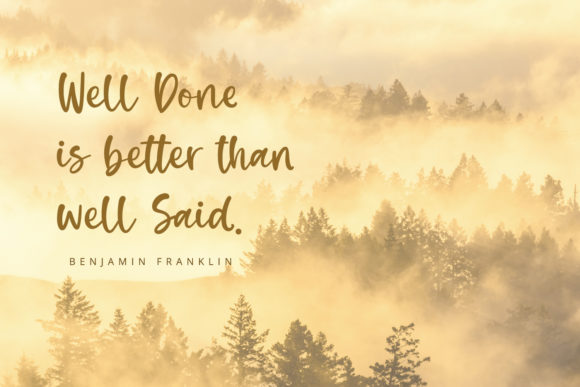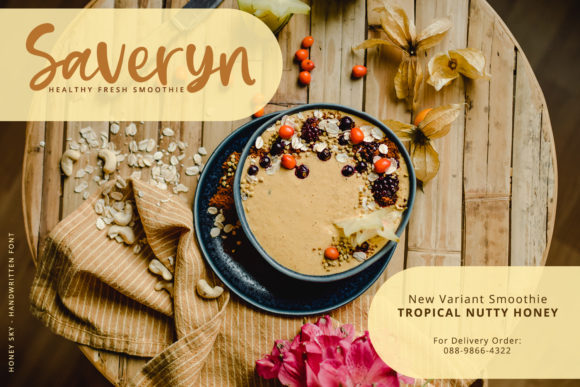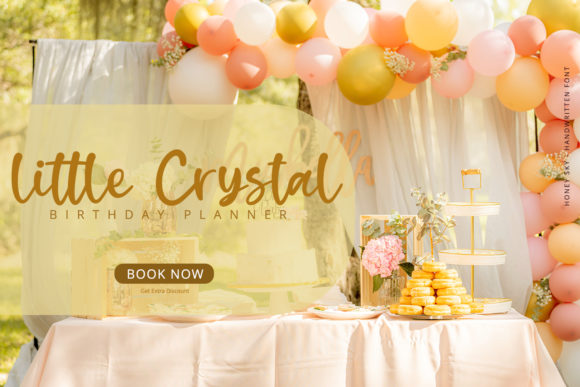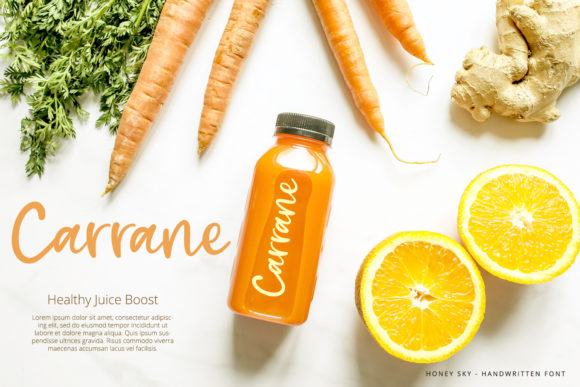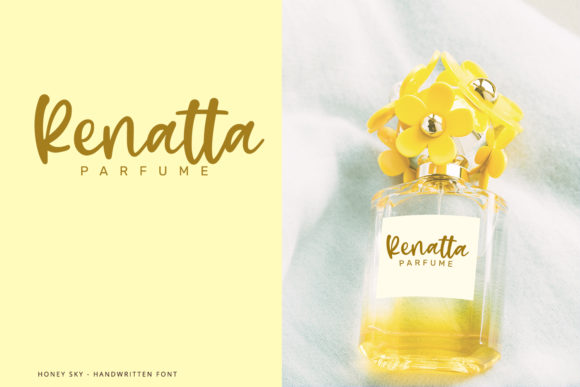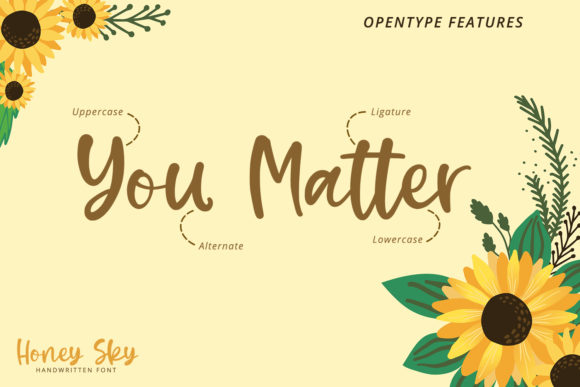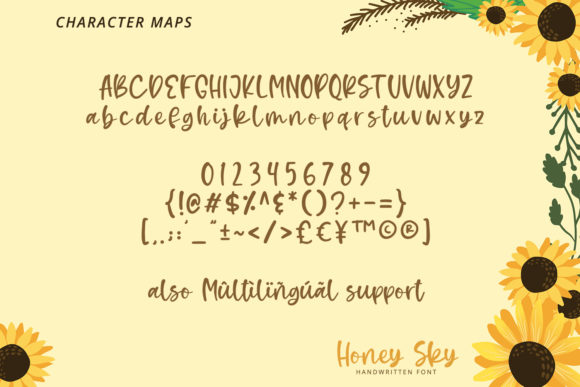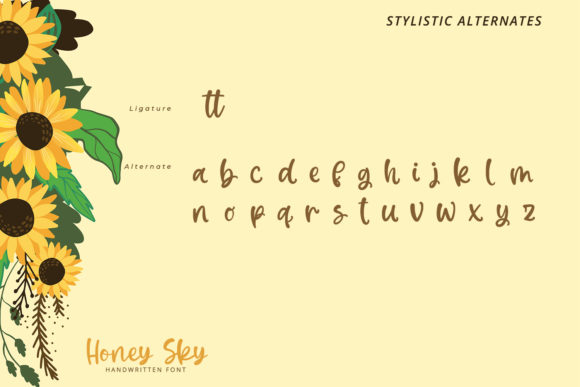
Honey Sky Font
Introducing Honey Sky: The Trendy and Friendly Handwritten Font
Get ready to soar high with Honey Sky, a font that combines trendiness with a friendly handwritten essence. Versatile and stylish, Honey Sky is the perfect choice for any branding, product packaging, invitation, quote, t-shirt, label, poster, or logo you wish to develop. Embrace the charm of Honey Sky as it adds a touch of modernity and approachability to your creative projects.
Honey Sky’s trendy and friendly appeal brings a sense of modernity and warmth to your designs. Its handwritten letterforms flow with a seamless beauty, making your text feel like a warm and welcoming message.
As a font suitable for various design purposes, Honey Sky becomes your go-to choice for creating captivating branding and product packaging. Its versatility ensures that your designs stand out with a trendy and approachable touch.
The font’s suitability for invitations, quotes, t-shirts, and more makes it a versatile option for any project. Honey Sky adds a contemporary flair that resonates with diverse audiences.
Embrace the trendy charm of Honey Sky as you embark on your creative endeavors. Let it be the font that elevates your work, creating a sense of style and friendliness in every project.
As you explore the possibilities of Honey Sky, you’ll find it to be a font that enhances your designs with ease. Its trendy and friendly handwritten beauty elevates your work, ensuring that your creations leave a lasting impression.
So, let Honey Sky be the font that lifts your designs to new heights. Embrace its modern and approachable appeal, and watch as your branding, packaging, invitations, and more come to life with a touch of trendiness and warmth. With Honey Sky as your go-to font, your designs will resonate with contemporary elegance, captivating your audience and leaving a lasting impression. Embrace the trendy charm of Honey Sky and create designs that are truly remarkable and unforgettable!